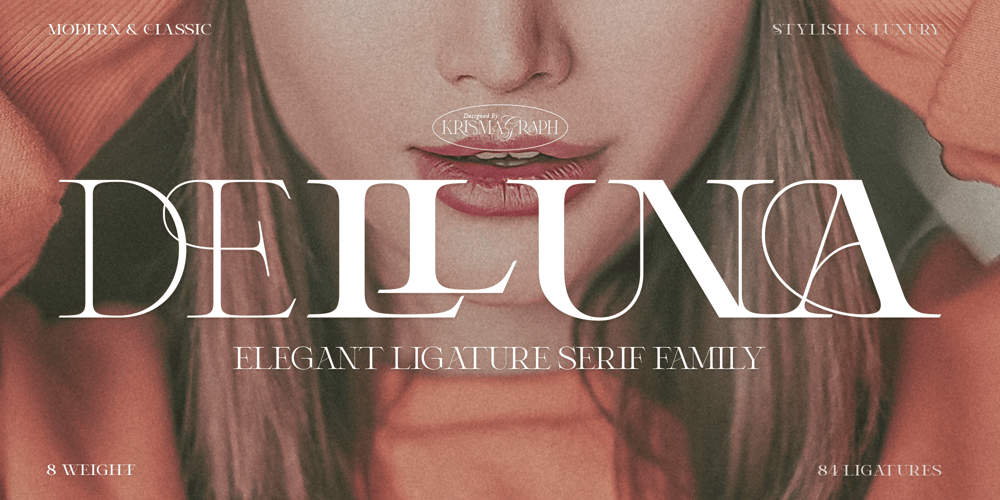
Delluna Typeface Font Family was designed by Ratna Krismawati and published by Krismagraph. Delluna Typeface contains 8 styles and family package options. Delluna typeface is an elegant ligature family serif, each of them has eight weights from thin to extra bold. With 84 unique ligatures and alternates.Delluna typeface is made mainly for headlines, titles, and other short texts. It is well-suited for advertising, mood board, branding, logotypes, packaging, labels, editorial design, modern logos, websites, social media quotes, weddings, book covers, magazines, contemporary and classic designs, and much more.What you get: 8 font Delluna Typeface Ligatures & alternates Multilingual support Punctuation, numbers, fraction & symbols Accessible in Adobe Illustrator, Adobe Photoshop, Coreldraw, and even work on Microsoft Word. PUA Encoded Characters – Fully accessible without additional design software. Fonts include multilingual support.